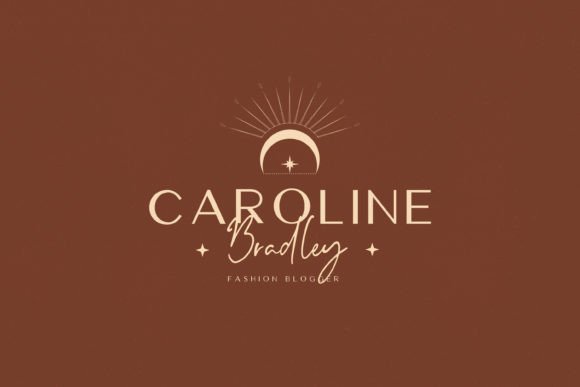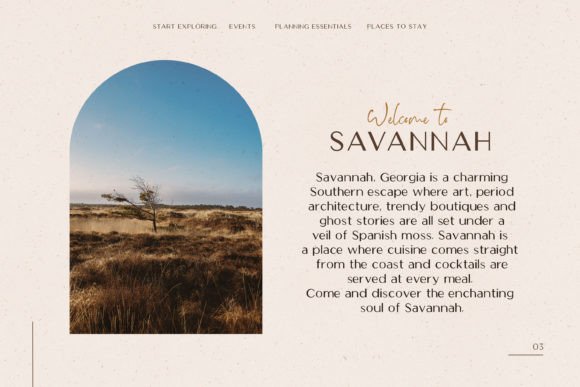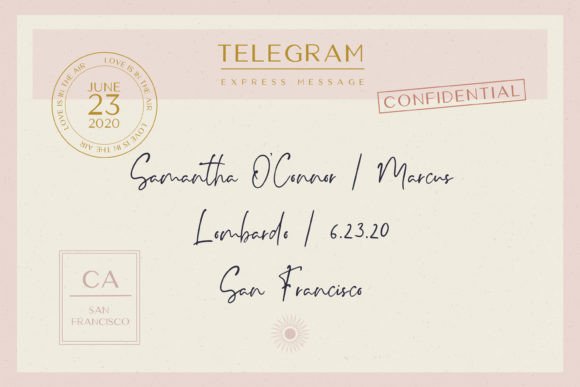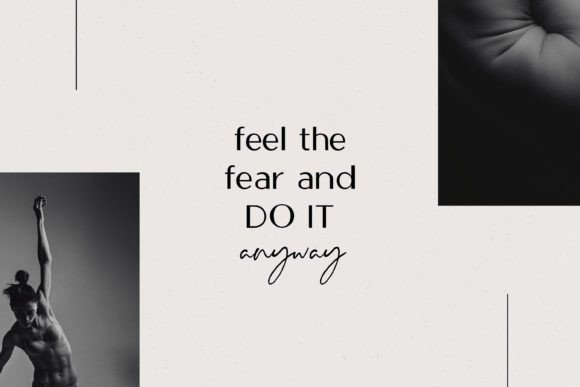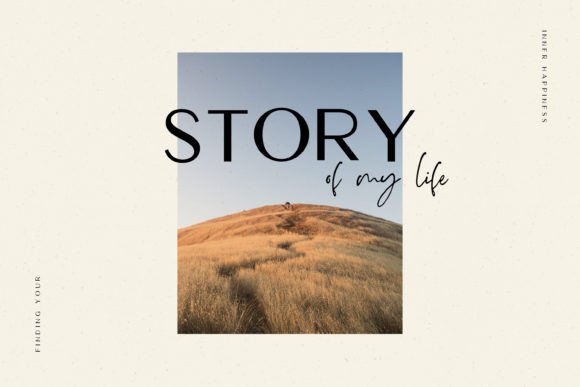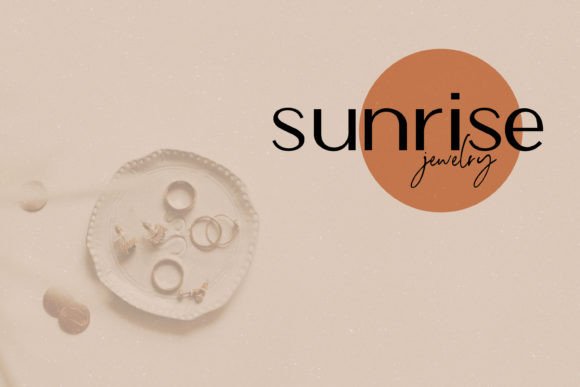
Introducing Bohemy Font: The Ultimate Aesthetic Font Duo for Designers and Crafters
Are you a designer or crafter looking for a unique and stylish font to elevate your creative projects? Look no further than Bohemy Font, a beautiful aesthetic font duo that’s perfect for a wide range of applications. From logo design and branding to signature, wedding cards, packaging design, stationery, website design, and more, Bohemy Font is the perfect choice for anyone seeking a distinctive and eye-catching typography solution.
What Makes Bohemy Font So Special?
Bohemy Font is a carefully crafted font duo that combines elegance, sophistication, and playfulness. The two fonts in the duo are designed to work seamlessly together, offering a versatile and dynamic typography system that’s perfect for creating stunning visual designs. Whether you’re working on a logo, a wedding invitation, or a website design project, Bohemy Font provides the perfect blend of style, flexibility, and creativity.
Key Features of Bohemy Font
- Unique and Aesthetic Design: Bohemy Font boasts a distinctive and stylish design that’s sure to turn heads. The font duo features intricate details, beautiful swashes, and a range of elegant flourishes that add a touch of sophistication to any design.
- Perfect for Logos and Branding: Bohemy Font is ideal for creating memorable logos and branding materials. The font’s unique design and versatility make it perfect for crafting distinctive brand identities that stand out from the crowd.
- Flexible and Customizable: Bohemy Font comes with a range of features that make it easy to customize and adapt to your design needs. From adjustable swashes and flourishes to multiple font weights and styles, Bohemy Font provides endless possibilities for creative expression.
- Easy to Use: Despite its intricate design, Bohemy Font is surprisingly easy to use, even for designers and crafters with limited typography experience. The font duo comes with clear instructions and a user-friendly design that makes it simple to get started and achieve stunning results.
How to Use Bohemy Font in Your Designs
Bohemy Font is incredibly versatile and can be used in a wide range of design applications. Here are just a few ideas to get you started:
- Logo Design: Use Bohemy Font to create stunning logos that showcase your brand’s personality and style.
- Wedding Cards and Stationery: Add a touch of elegance and sophistication to your wedding cards, invitations, and stationery with Bohemy Font.
- Packaging Design: Use Bohemy Font to create eye-catching packaging designs that stand out on store shelves.
- Website Design: Elevate your website design with Bohemy Font’s elegant and stylish typography.
Why Choose Bohemy Font?
With so many fonts on the market, why choose Bohemy Font? Here are just a few reasons why designers and crafters love Bohemy Font:
- Unique Design: Bohemy Font offers a distinctive and stylish design that’s unlike any other font on the market.
- High-Quality Typography: Bohemy Font is crafted with precision and attention to detail, ensuring a high-quality typography experience.
| Font Name | Bohemy Font |
| Author | elvinova |
Bohemy Font is a game-changing aesthetic font duo that’s perfect for designers and crafters seeking a unique and stylish typography solution. With its intricate design, flexibility, and ease of use, Bohemy Font is ideal for a wide range of design applications, from logo design and branding to wedding cards, packaging design, and website design. Whether you’re a seasoned designer or a crafter with limited typography experience, Bohemy Font is the perfect choice for anyone looking to elevate their creative projects and achieve stunning results.